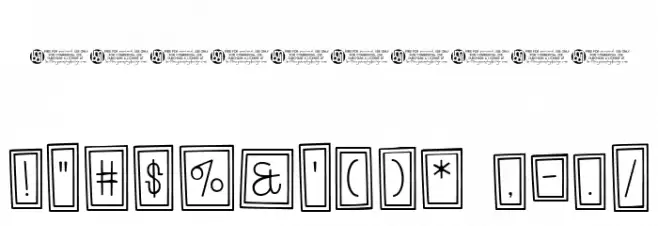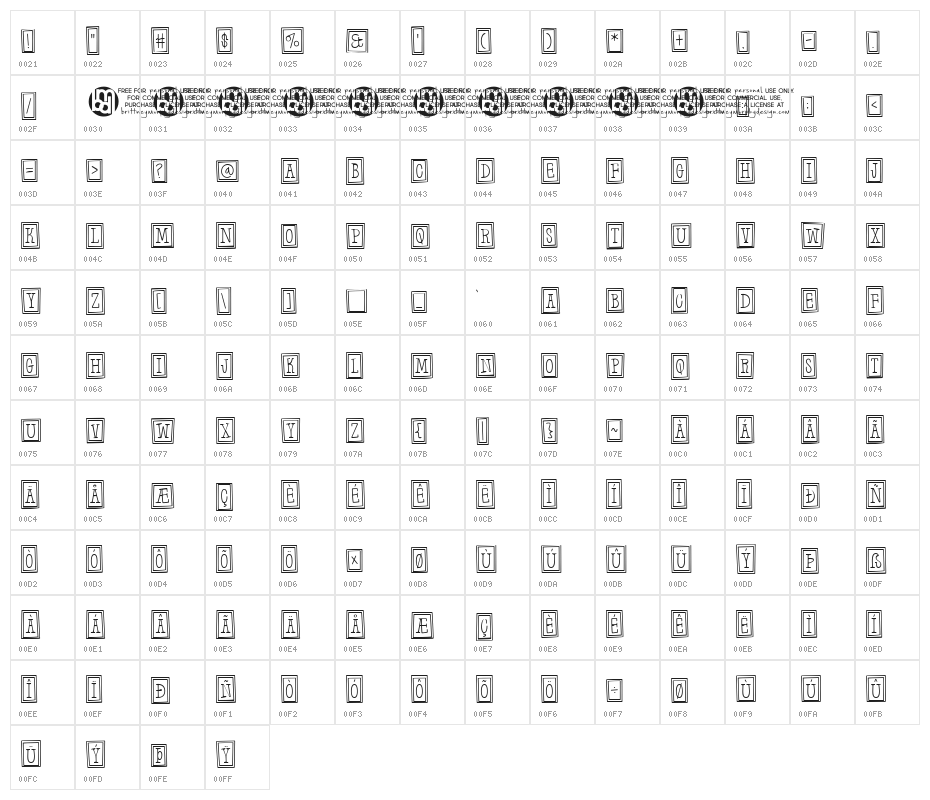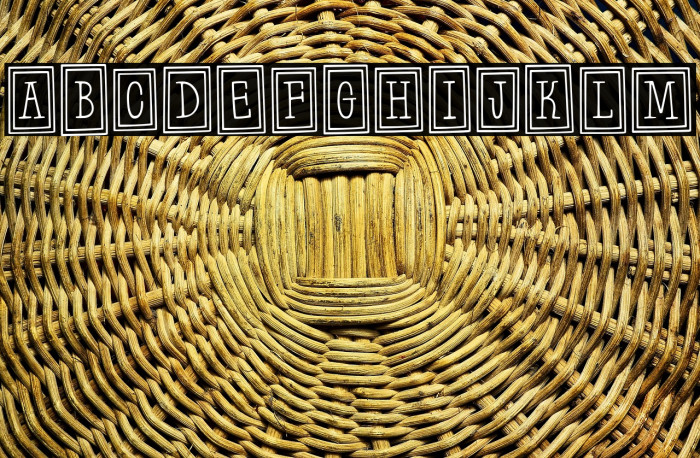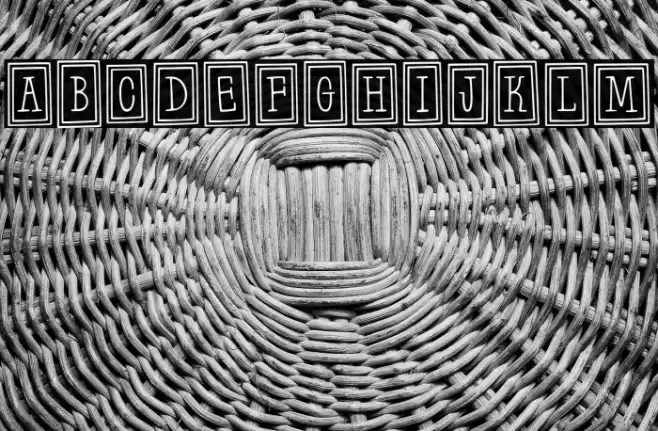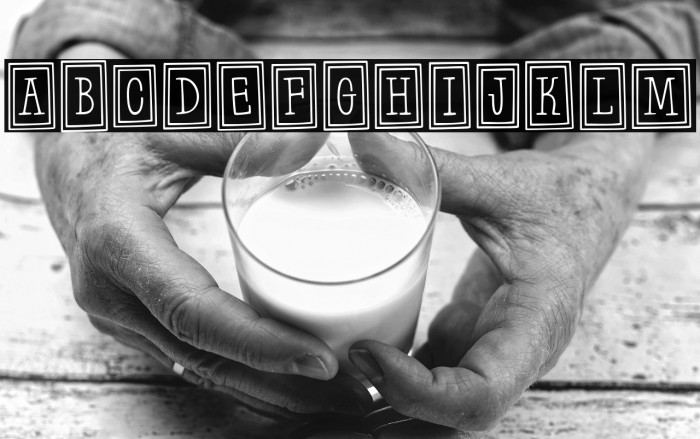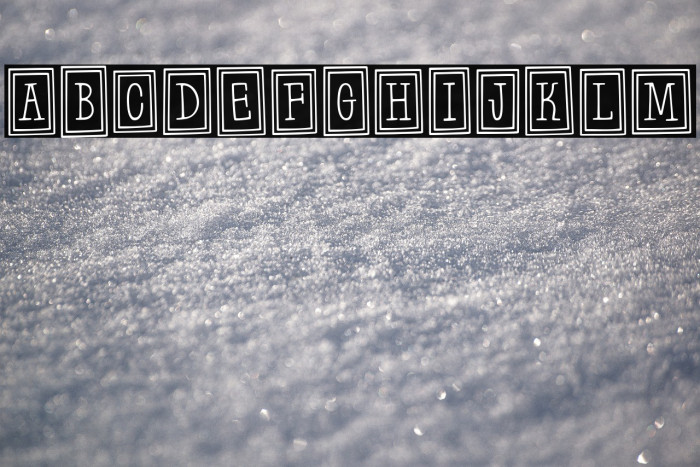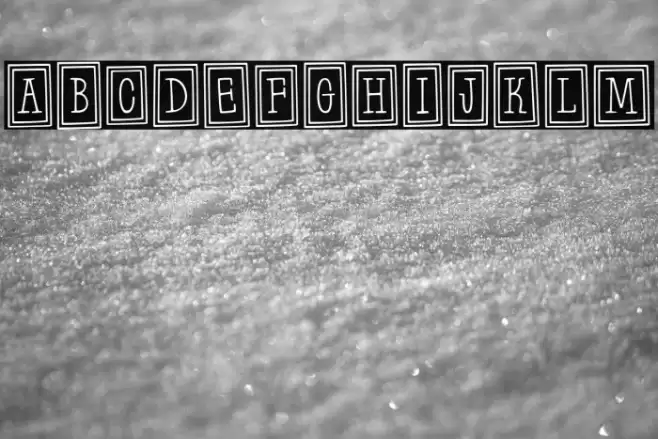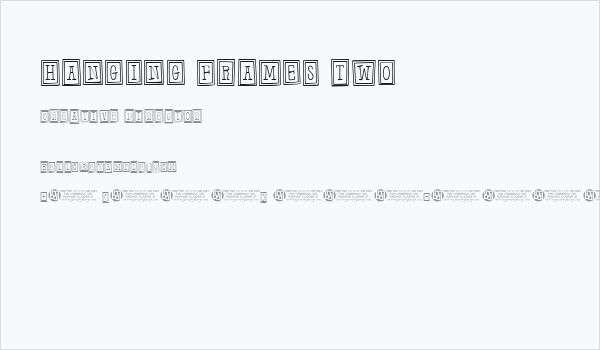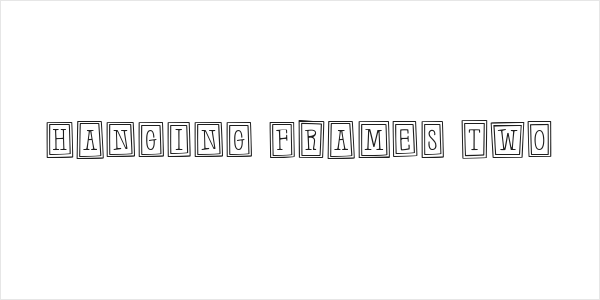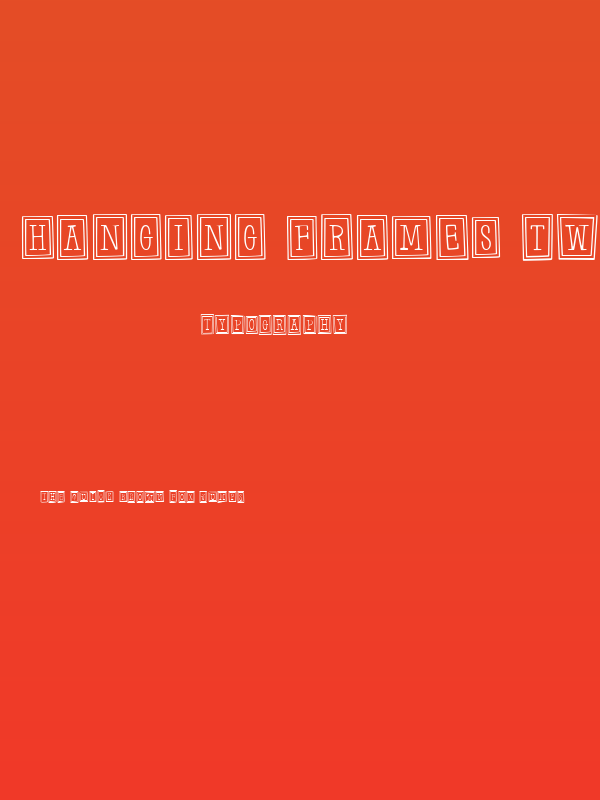
Hanging Frames Two Font
Hanging Frames Two Description
This font features a unique design where each character is enclosed within a rectangular frame, giving it a distinctive and playful appearance. The letters are slightly tilted, adding a dynamic and whimsical touch. The strokes are consistent in thickness, providing a uniform look across all characters. The uppercase and lowercase letters maintain a similar style, ensuring cohesiveness. The special characters are also framed, matching the overall theme. This font is ideal for projects that require a fun and creative vibe, such as children's books, playful branding, or artistic posters.
| Proposed Projects | Ideal for children's books, playful branding, artistic posters, and creative invitations. |